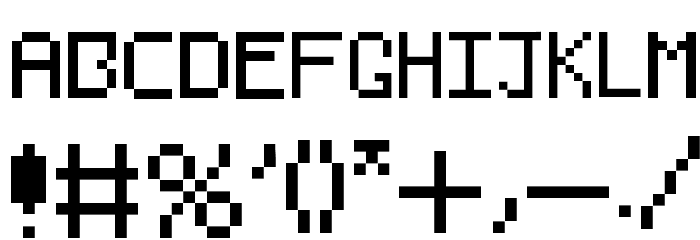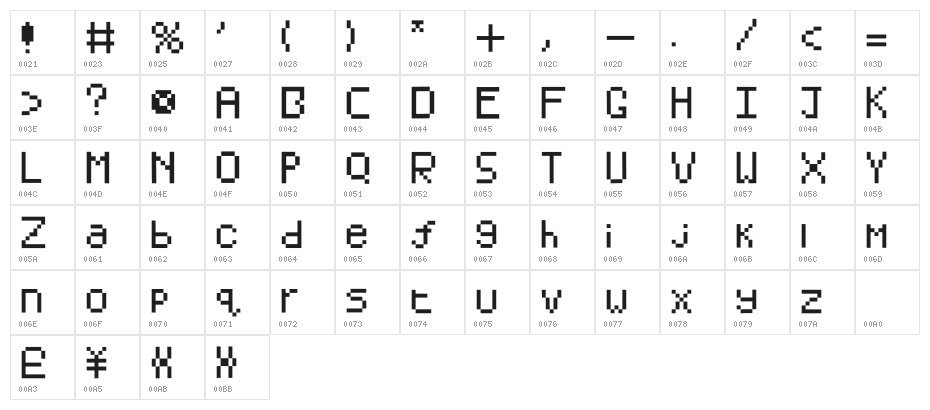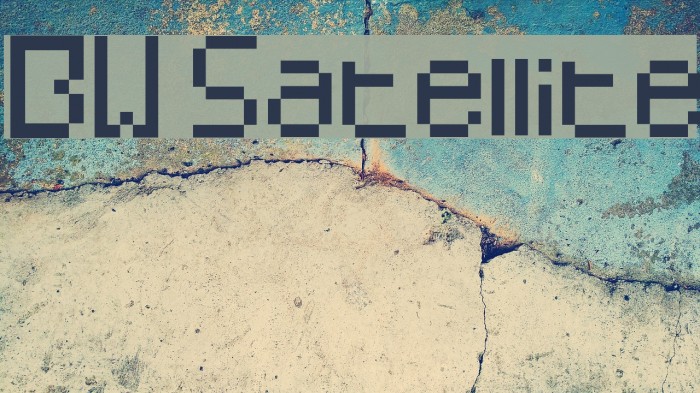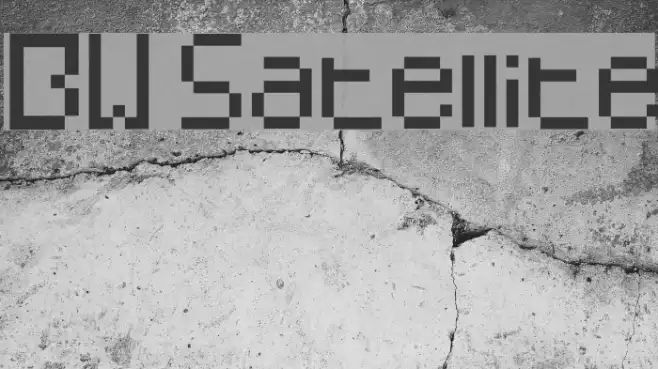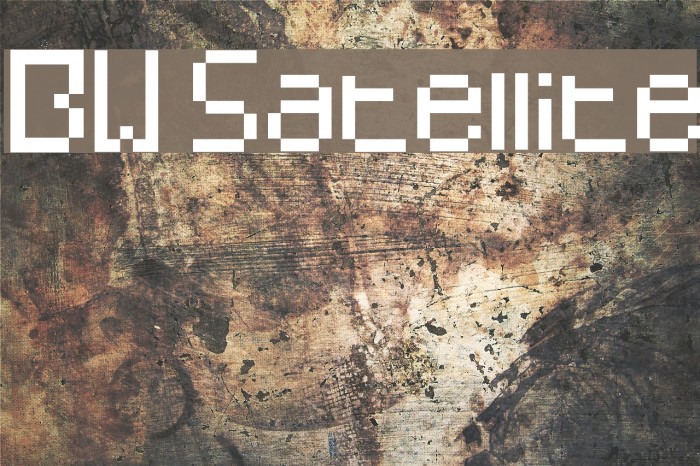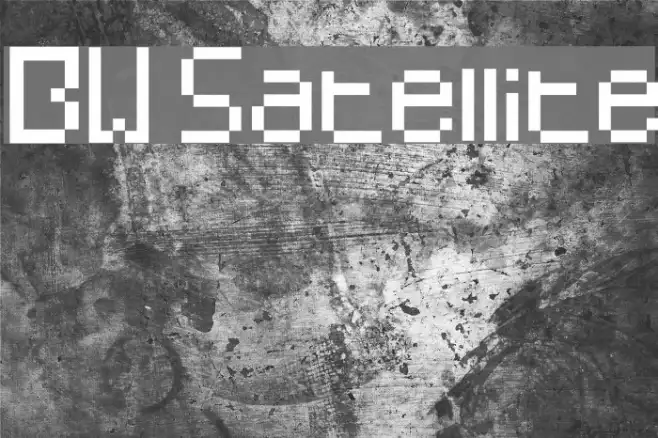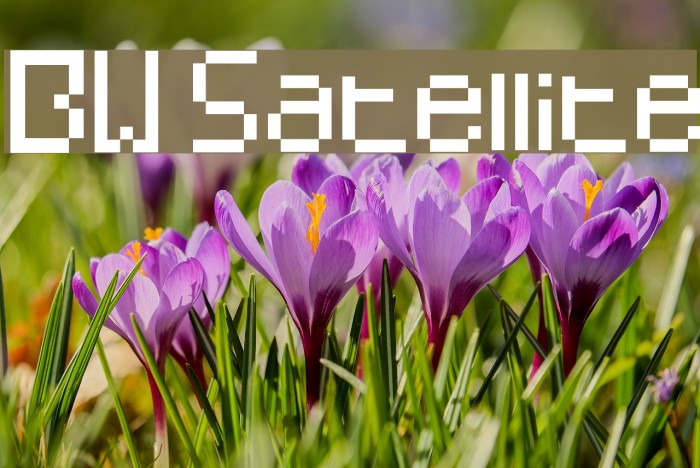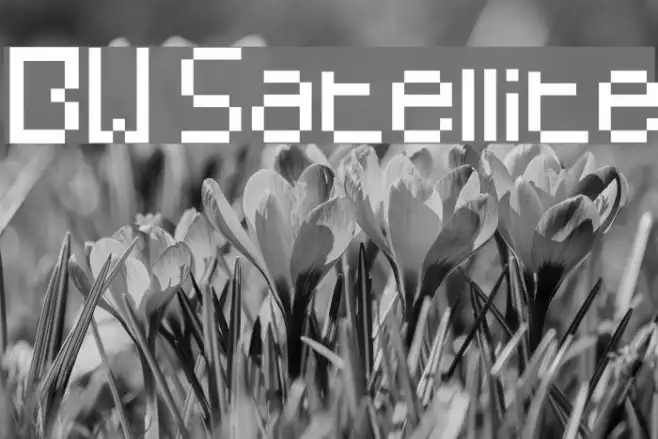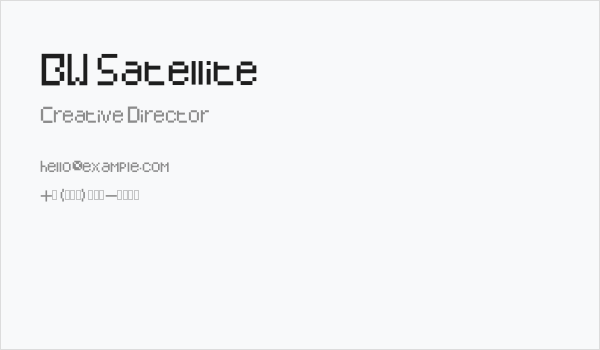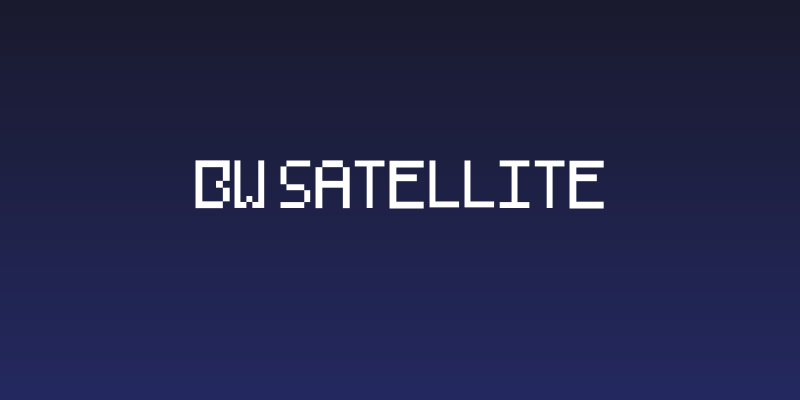
BW Satellite Font
BW Satellite Description
This font features a pixelated, blocky design reminiscent of early digital displays and video game graphics. Each character is composed of square pixels, creating a distinctly retro and technological aesthetic. The uppercase and lowercase letters maintain a consistent height, emphasizing uniformity and clarity. The numbers and special characters follow the same pixelated style, ensuring a cohesive look across all glyphs. This font is highly legible at various sizes, making it suitable for digital interfaces and designs that aim to evoke nostalgia or a futuristic feel.
| Proposed Projects | Ideal for video game design, digital art projects, retro-themed websites, and tech-inspired branding. |